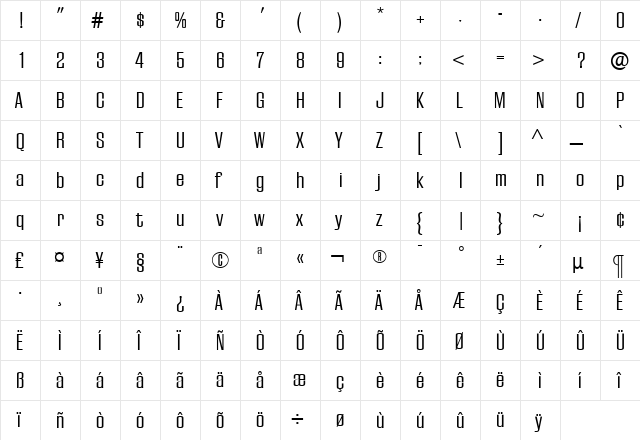
EuropaGrotesqueLight Roman
Design Context for EuropaGrotesqueLight Typeface
EuropaGrotesqueLight takes a measured approach to typography — its balanced proportions and neutral character make it a reliable workhorse for both digital and print work. Its slender proportions lend an understated elegance to any composition.